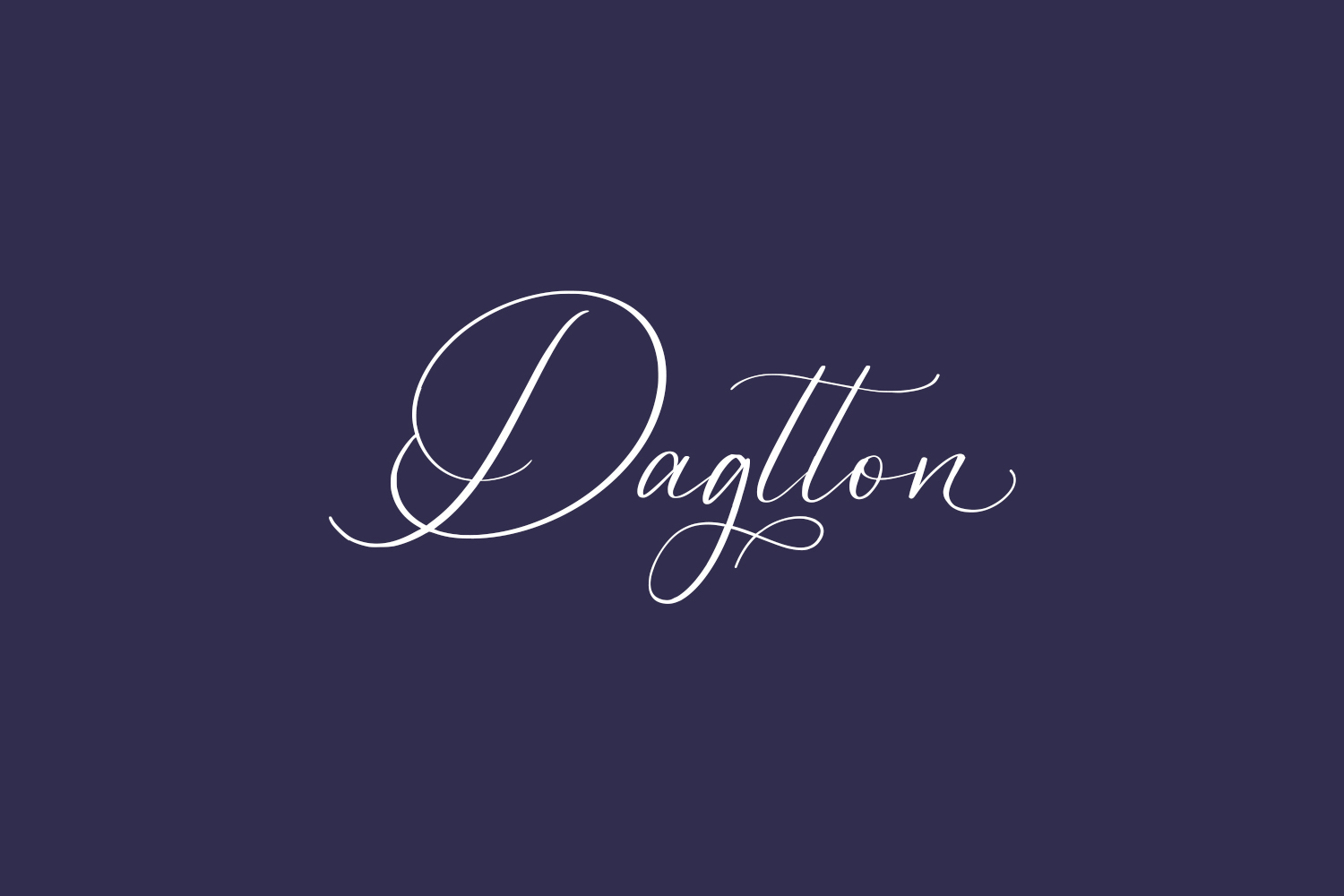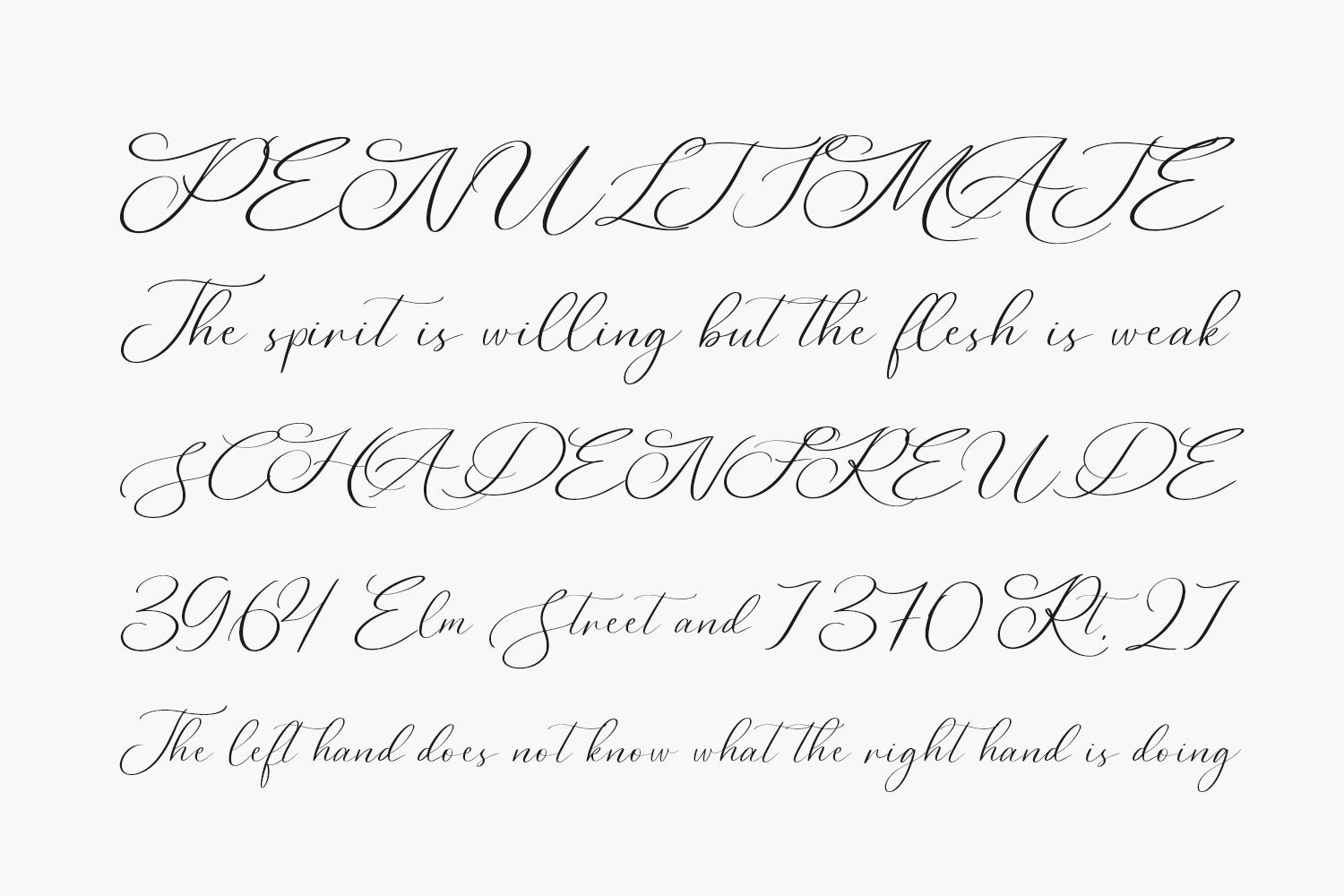
Dagtton Free Font is an elegant and delicate handwritten font. It looks stunning on wedding invitations, thank you cards, quotes, greeting cards, logos, business cards, and every other design which needs a handwritten touch. Dagtton Free Font was designed by Vultype and is free for personal use only. Please purchase the full version for commercial use.